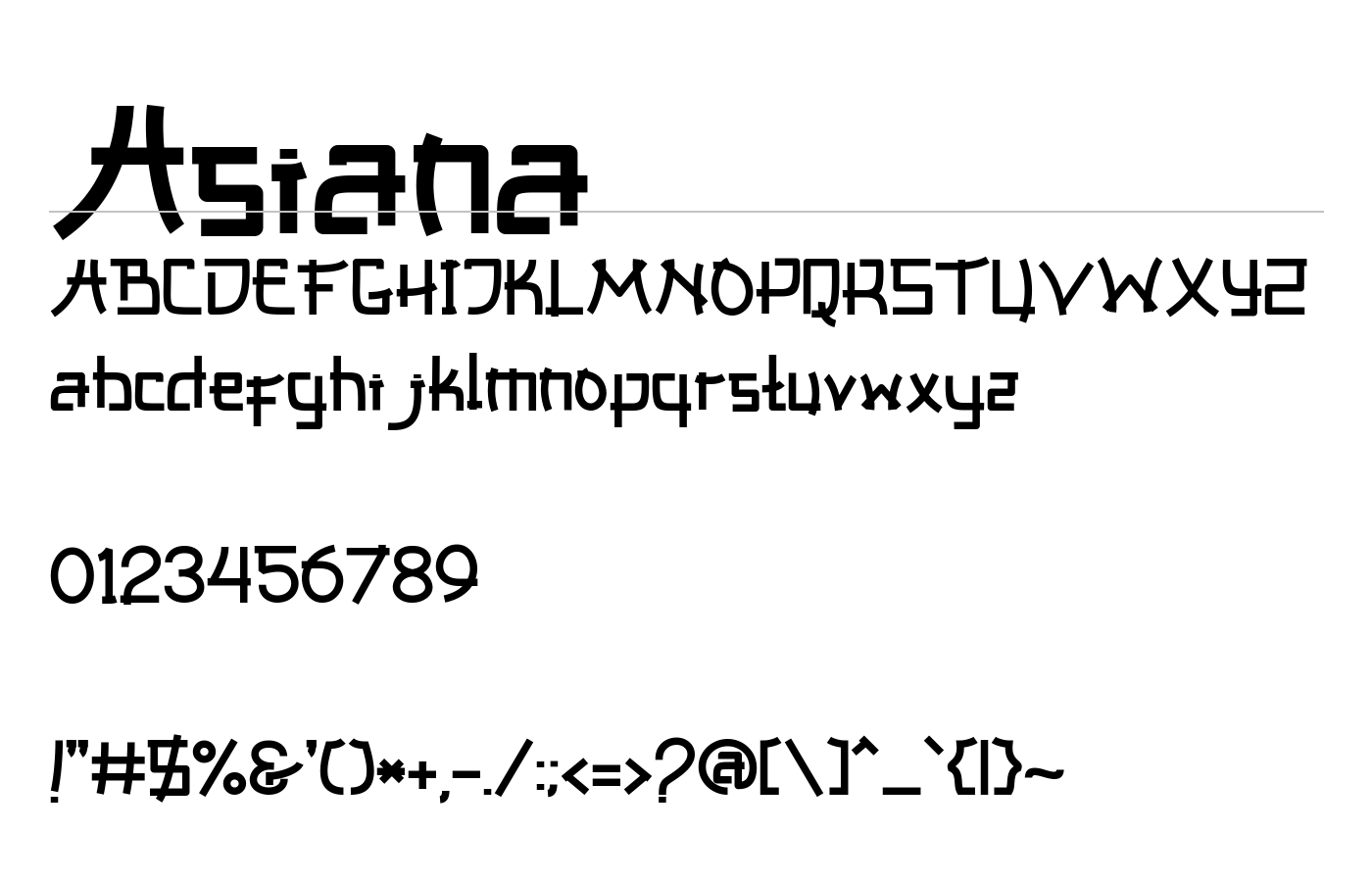
Asiana is a distinctive sans serif font with a futuristic and slightly geometric style, featuring sharp, angular strokes and a moderate contrast that gives it a dynamic, edgy character. Its unique letterforms, including stylized terminals and a mix of straight and curved lines, evoke an adventurous and modern vibe, making it ideal for creative branding, tech-oriented projects, and eye-catching headlines. This font works particularly well where a bold, unconventional look is desired, adding personality and a forward-thinking feel to any design.
Asiana Font
About Asiana Font